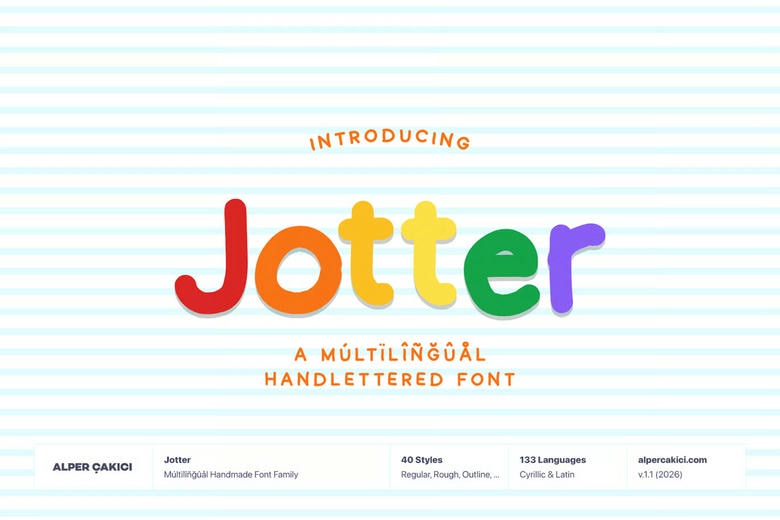
Jotter Font Family
Jotter is a lively handwritten typeface with a playful, comic-inspired style and a natural, expressive rhythm. It captures the warmth of real handwriting and stays clear at any size.
Jotter supports extended Latin and Cyrillic languages, so it is ready for creative projects worldwide. The family offers several expressive styles, each available in Regular and Italic.
Jotter Handwritten Font Family